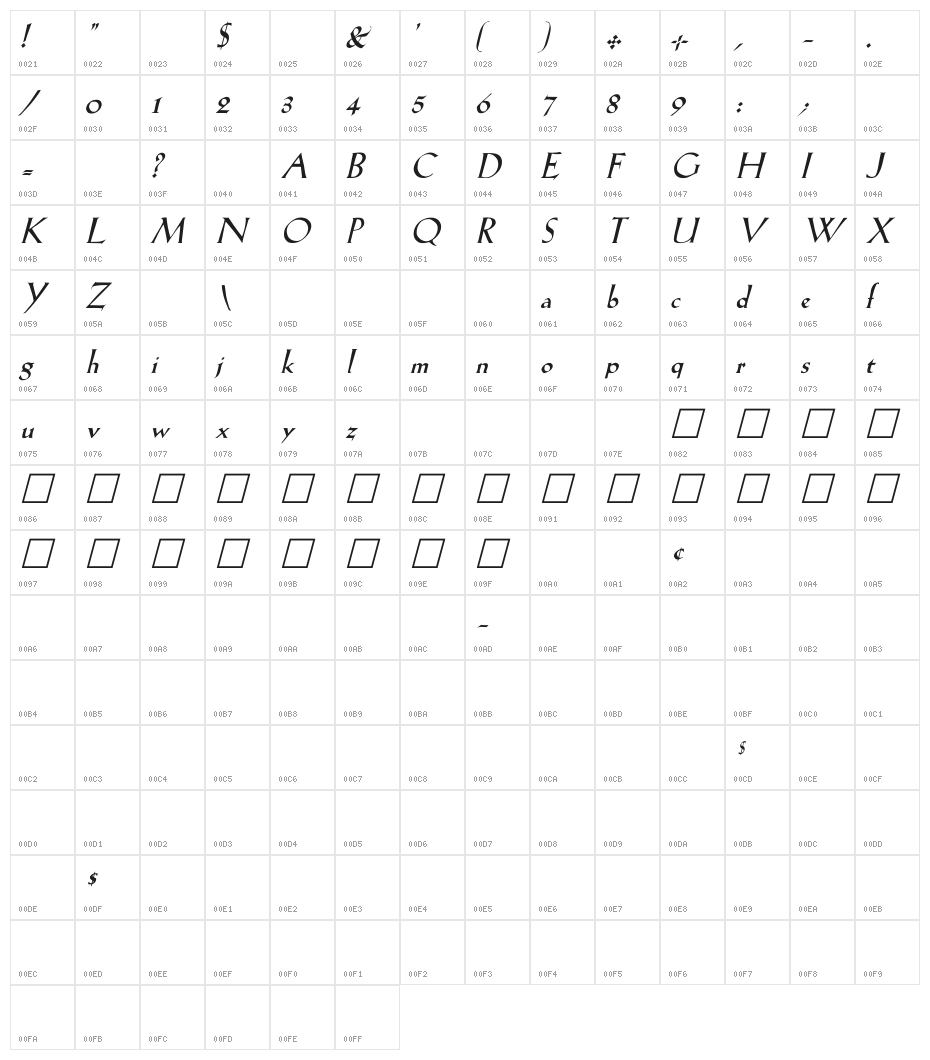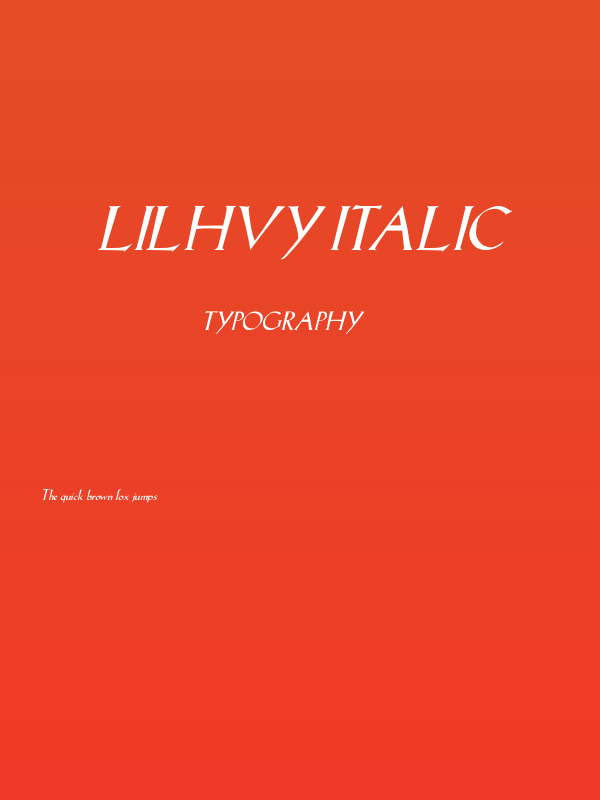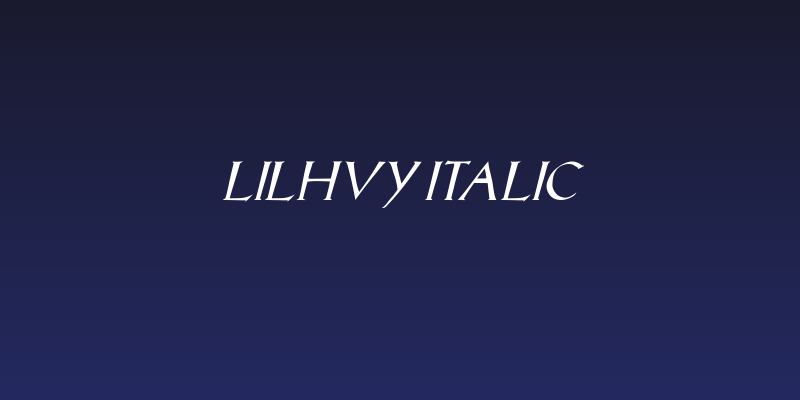
LilHvy Italic Font
LilHvy Italic Description
This font features an elegant and dynamic italic style with sharp, angular serifs and a distinct forward slant, giving it a sense of movement and sophistication. The characters are well-defined with a medium contrast in stroke thickness, providing a balanced and readable appearance. The uppercase letters are tall and commanding, while the lowercase letters maintain a consistent flow, enhancing the font's overall fluidity. The numerals and special characters are designed to complement the alphabet, maintaining the same stylistic elements. This font is suitable for projects that require a touch of elegance and flair.
| Proposed Projects | Ideal for branding, invitations, editorial design, and luxury product packaging. |